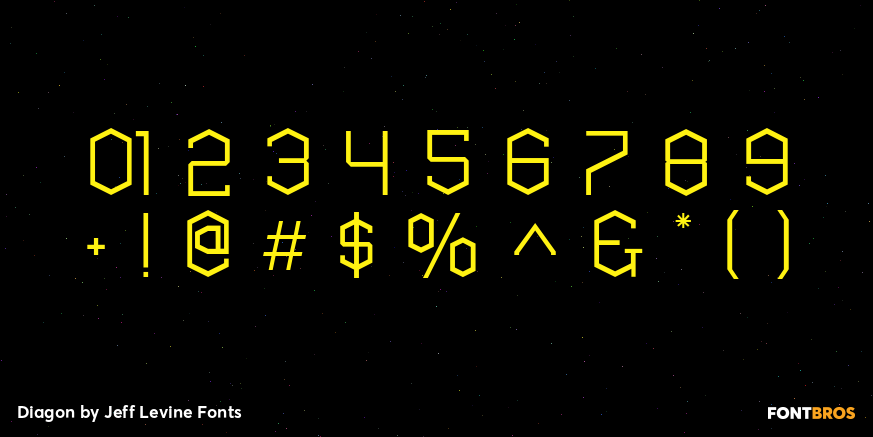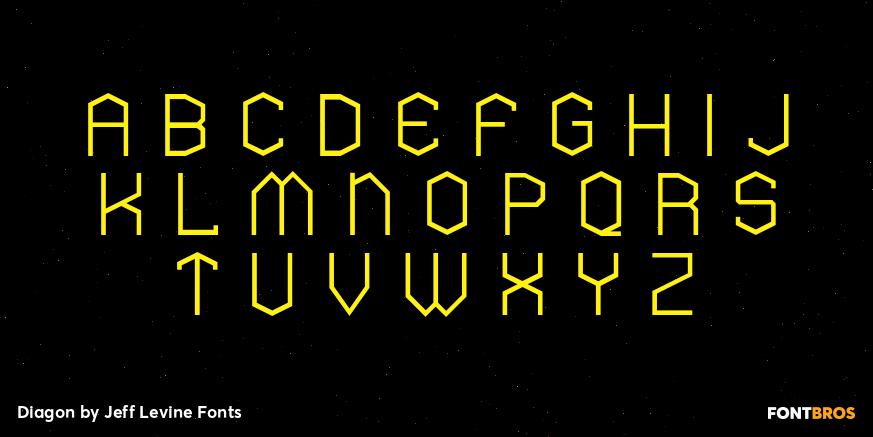
Diagon
This design from Jeff Levine defies description. It's kind of techno, somewhat of a novelty and definitely unusual.
Diagon JNL is the perfect font for projects that need a very different look.
Diagon JNL Regular by Jeff Levine Fonts